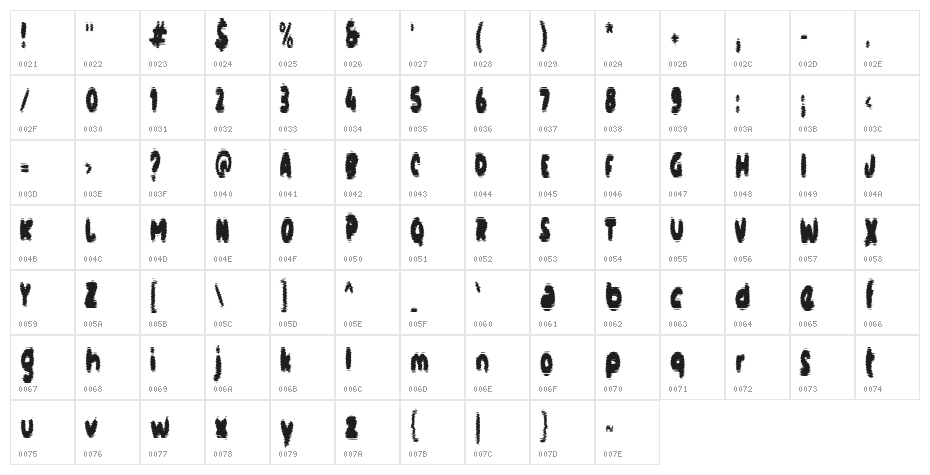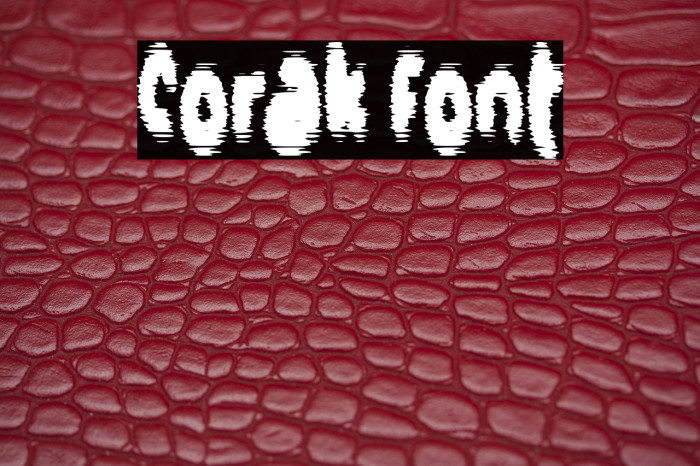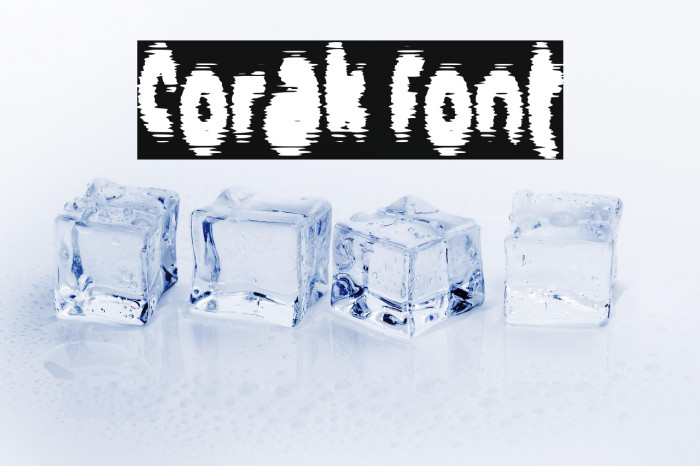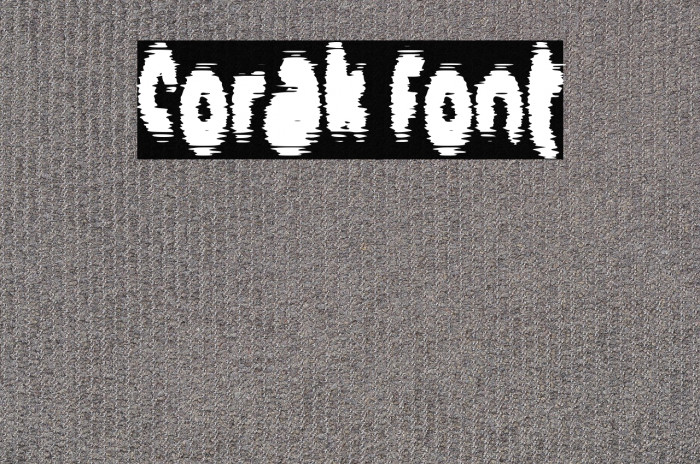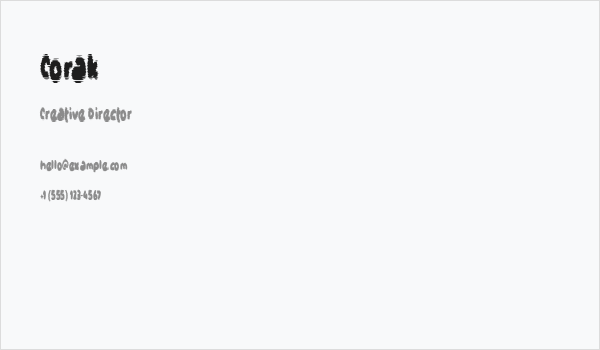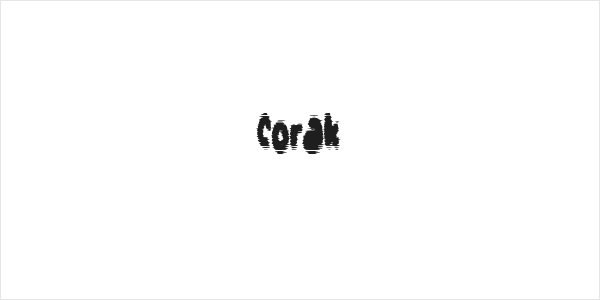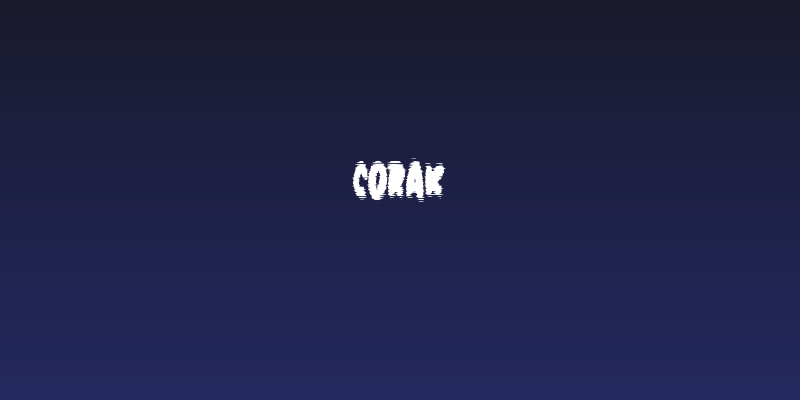
Corak Font
Corak Description
This font features a bold, distressed style with a unique texture that gives the appearance of being weathered or eroded. The characters are thick and heavy, with a rough, uneven edge that adds to the overall rugged aesthetic. The uppercase and lowercase letters maintain a consistent width, while the numbers and special characters follow the same textured pattern. This font's distinctive look makes it ideal for projects that require a bold, eye-catching design with a touch of grunge or vintage flair.
| Proposed Projects | Ideal for poster designs, album covers, branding for edgy or vintage-themed products, and any project needing a bold, standout typeface. |